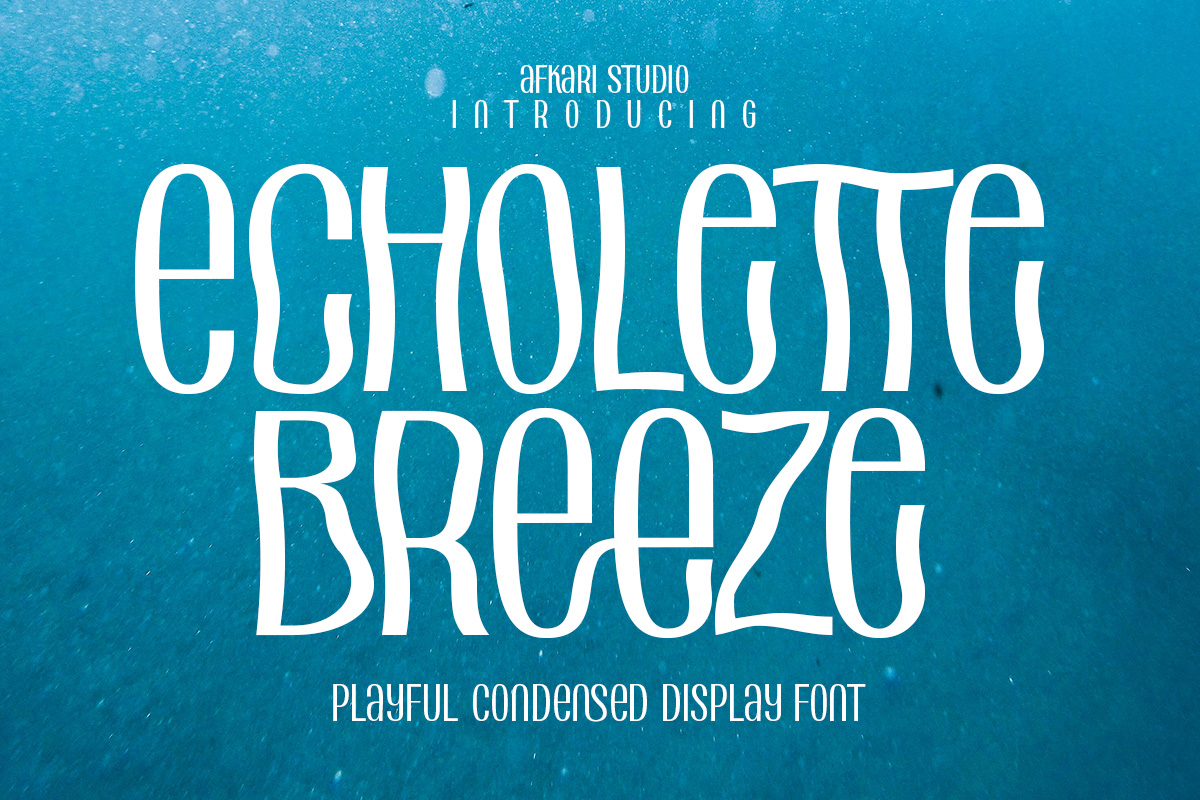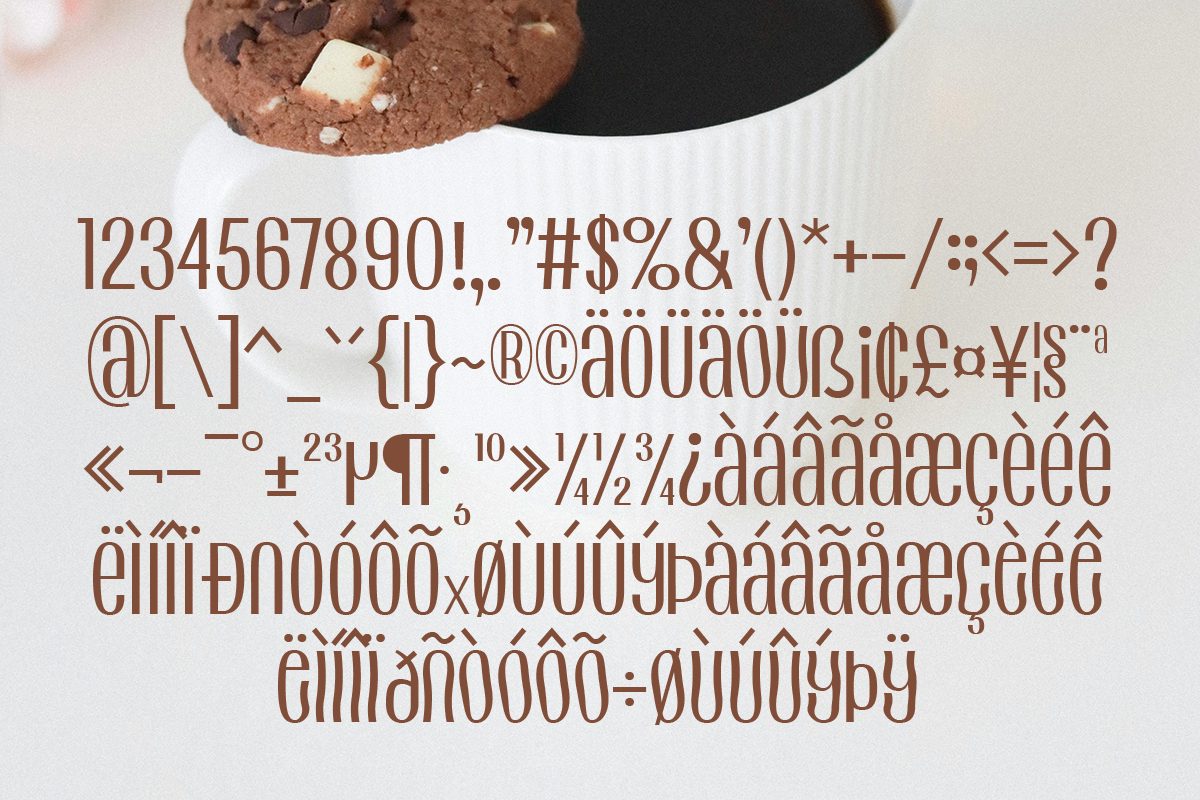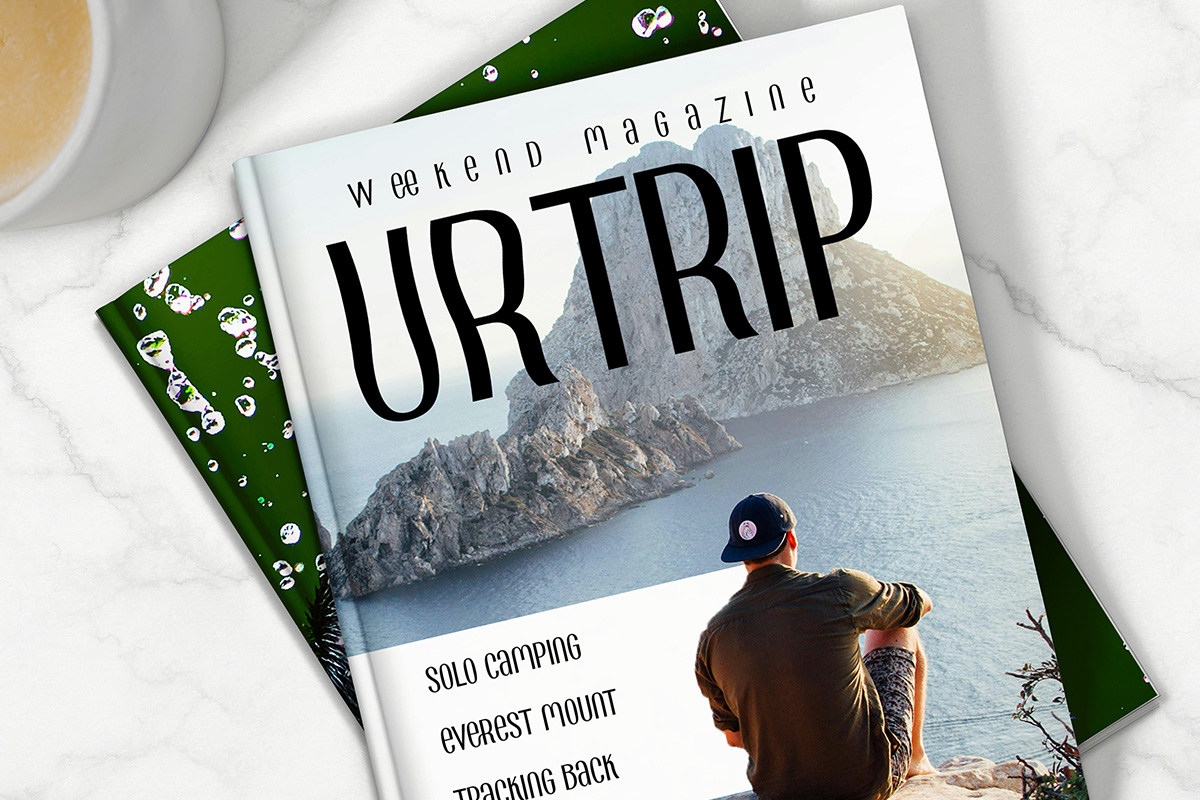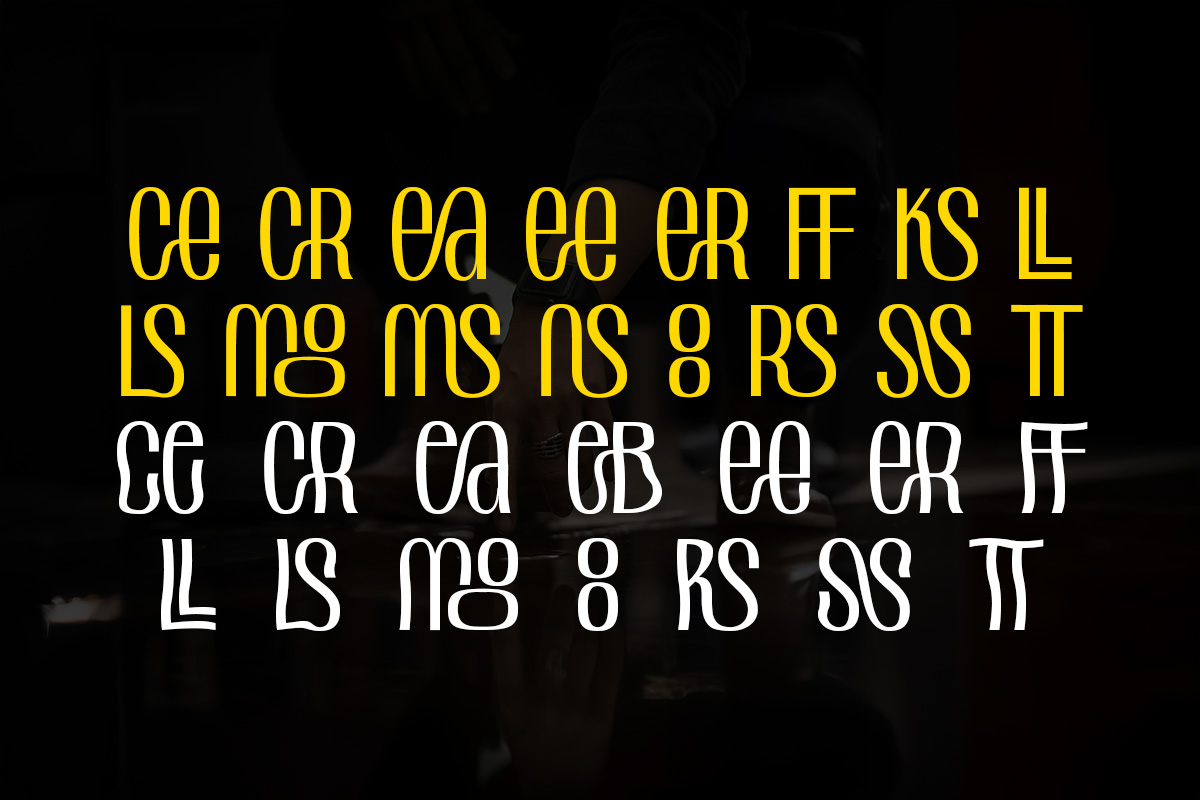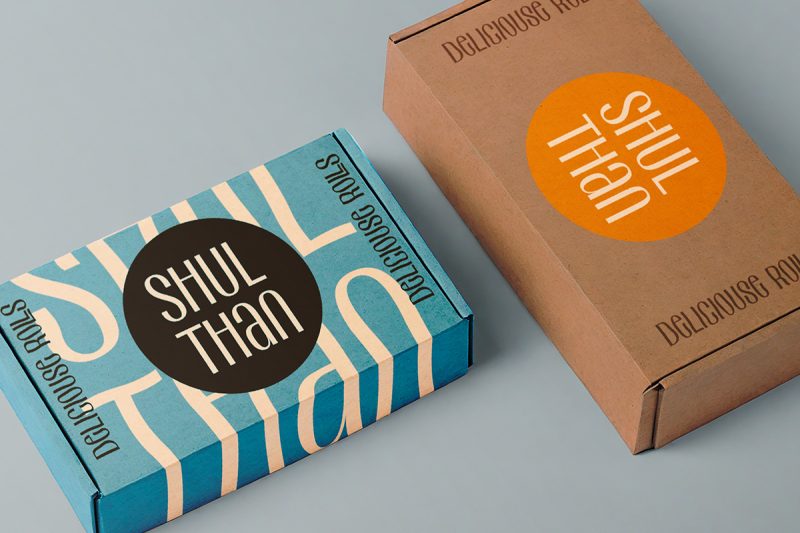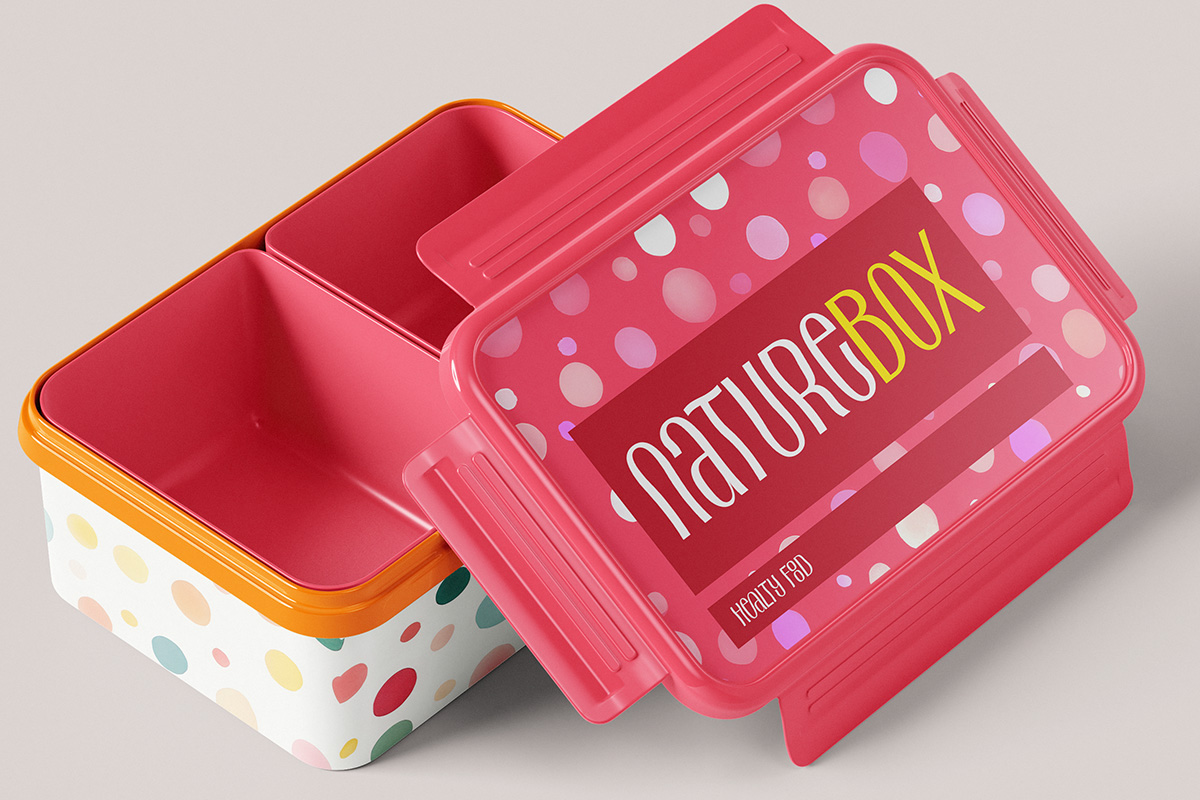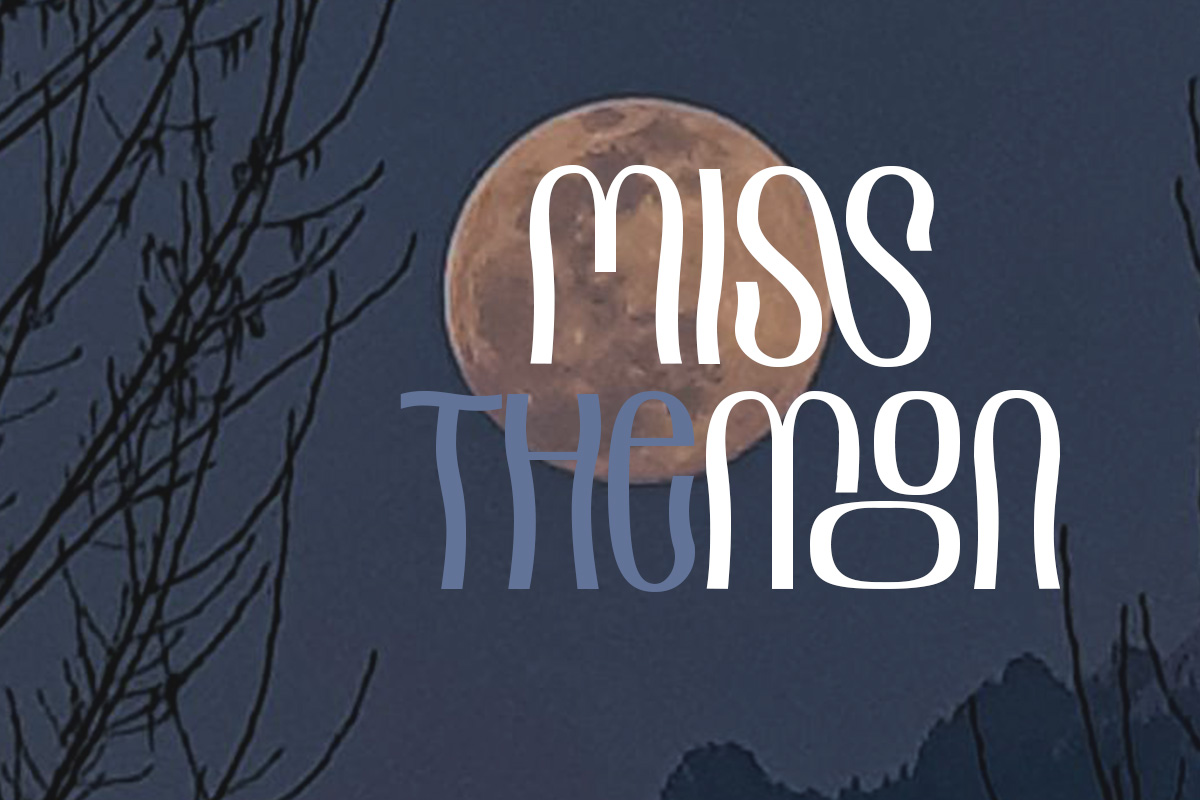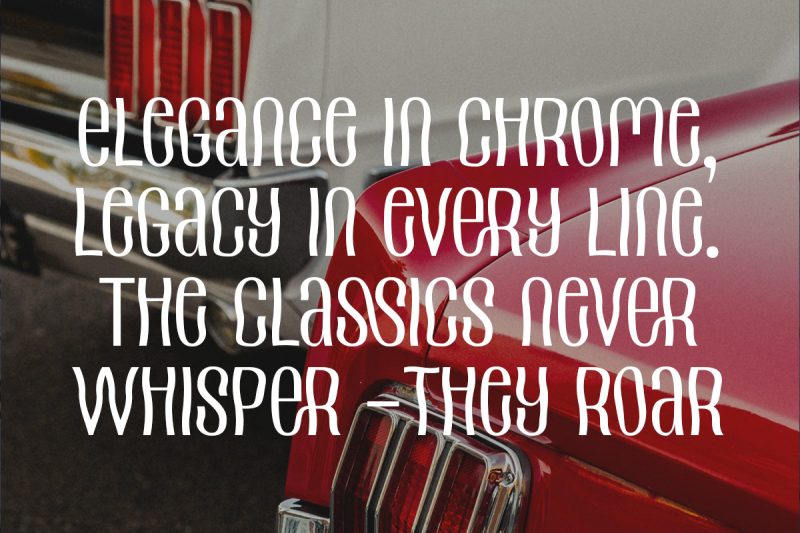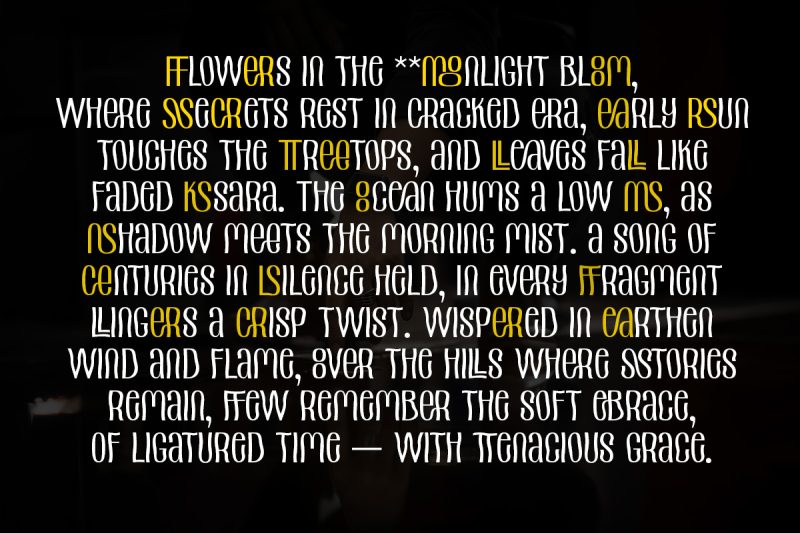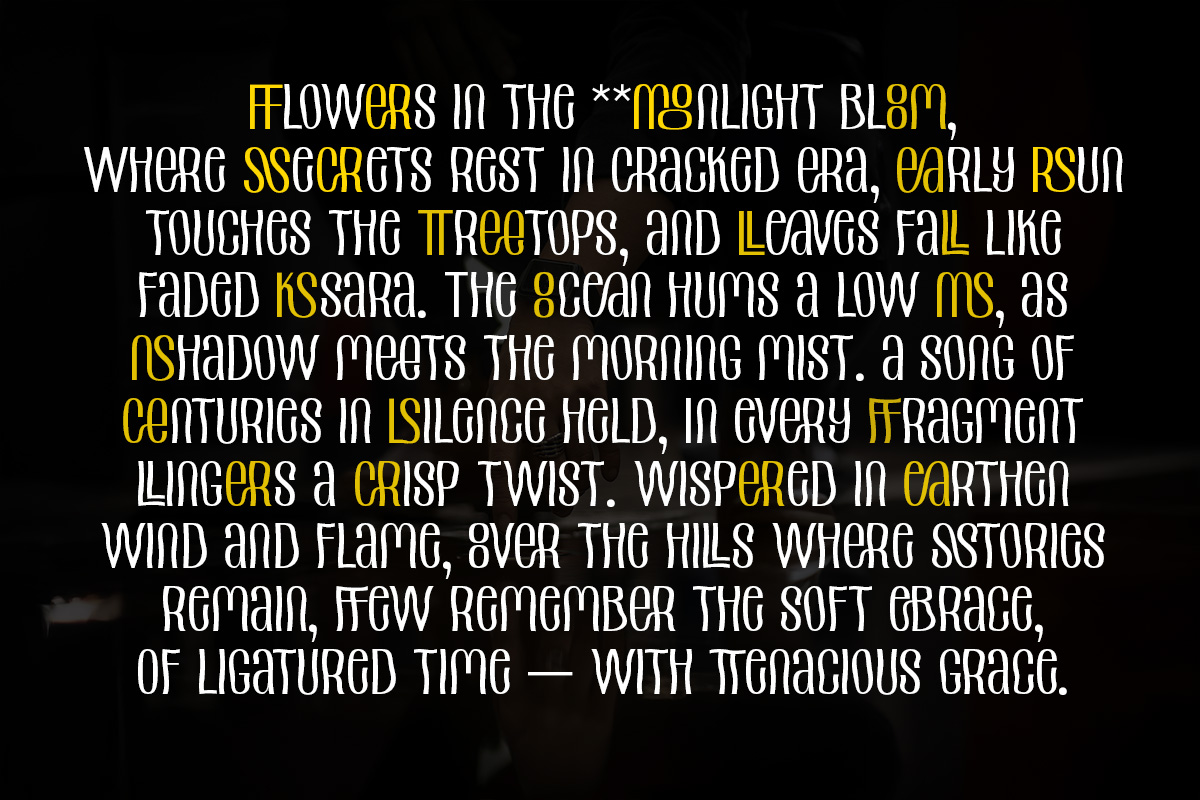
Echolette Breeze - Playful Condensed Display Font
Echolette Breeze is a playful condensed display font designed to bring a sense of movement, cheerfulness, and modern charm into your designs. With its narrow proportions, soft curves, and lively character shapes, this font delivers a fresh and friendly voice while remaining clean and highly readable.
Perfect for bold headlines and eye-catching titles, Echolette Breeze shines in projects that need energy without clutter. Its condensed structure allows you to fit more text into tight spaces—making it ideal for posters, social media graphics, packaging, children’s designs, and creative branding.
Whether used for joyful messaging or expressive visual statements, Echolette Breeze adds personality, rhythm, and a breezy tone to any layout.
– Uppercase, Lowercase, Number, and Punctuation
– Special Alternates and ligatures
– Mültîlíñgúãl Sùppört for; ä ö ü Ä Ö Ü ß ¿ ¡
Make A fun condensed display font with lively shapes and cheerful rhythm.